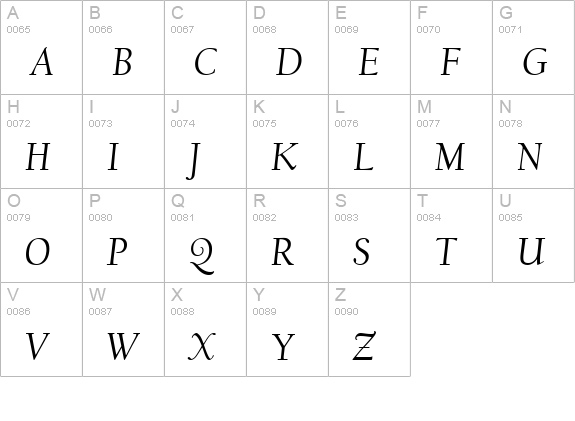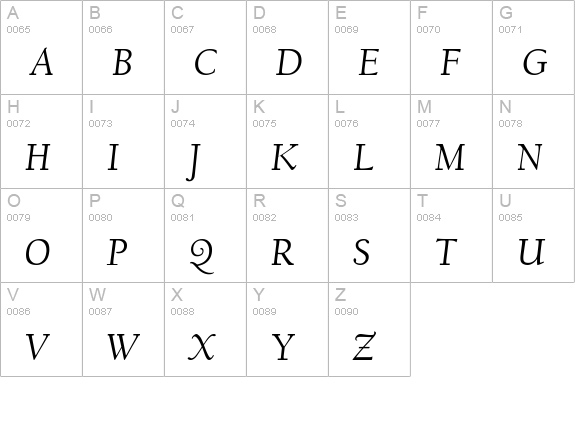
Californian FB Italic is a distinctive, italic variant in the Californian typeface family \xE2\x80\x94 well suited to design and typography projects.
Californian FB Italic font embodies the essence of modern elegance with its sleek and sophisticated design. Its italicized style exudes a sense of refinement and sophistication, making it the perfect choice for projects that require a touch of class. The flowing curves and subtle slant of the letters create a harmonious and dynamic visual effect that is both eye-catching and versatile. What makes Californian FB Italic font even more appealing is that it is available for free download at FontsMarket.com. This means that you can easily access this stylish font without any cost, making it a valuable addition to your design toolkit. Whether you're working on a branding project, a website design, or any other creative endeavor, Californian FB Italic font is sure to elevate your work and leave a lasting impression. Don't miss out on the opportunity to enhance your designs with this exquisite font – download it for free today!